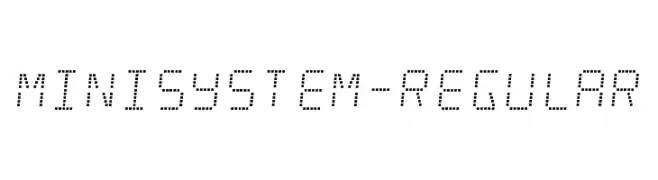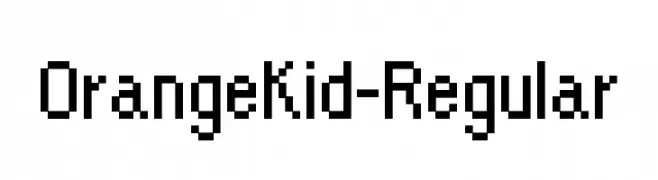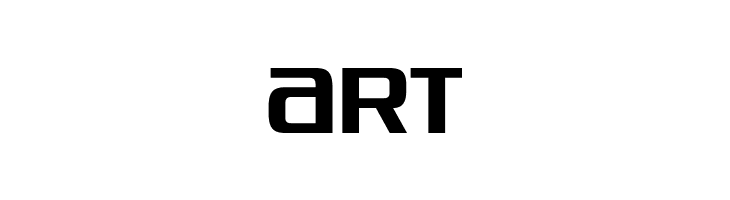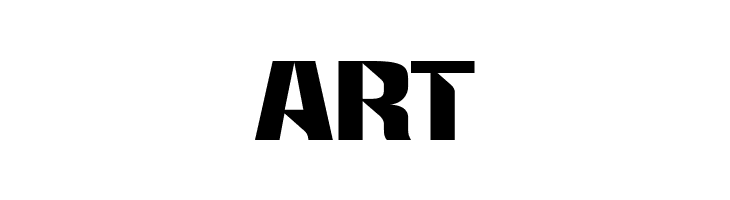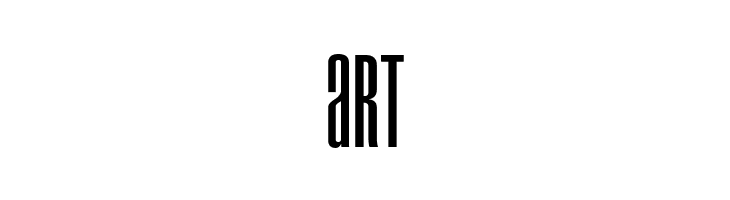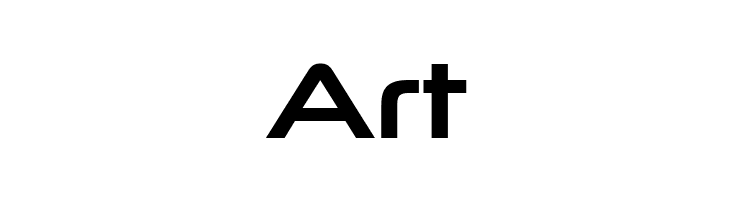
A modern, geometric font with a futuristic and technical style.
A bold, rounded font with a modern and playful style.
A pixelated, retro-style font reminiscent of digital displays.
A bold, blocky font with a strong, geometric style.
A dot-matrix style font with a retro, pixelated appearance.
A bold, geometric font with a modern and edgy style.
A tall, narrow font with a modern, professional appearance.
A futuristic, geometric font with clean lines and minimal contrast.
A pixelated, retro-style font inspired by early digital displays.
A bold, condensed font with high contrast and geometric design.